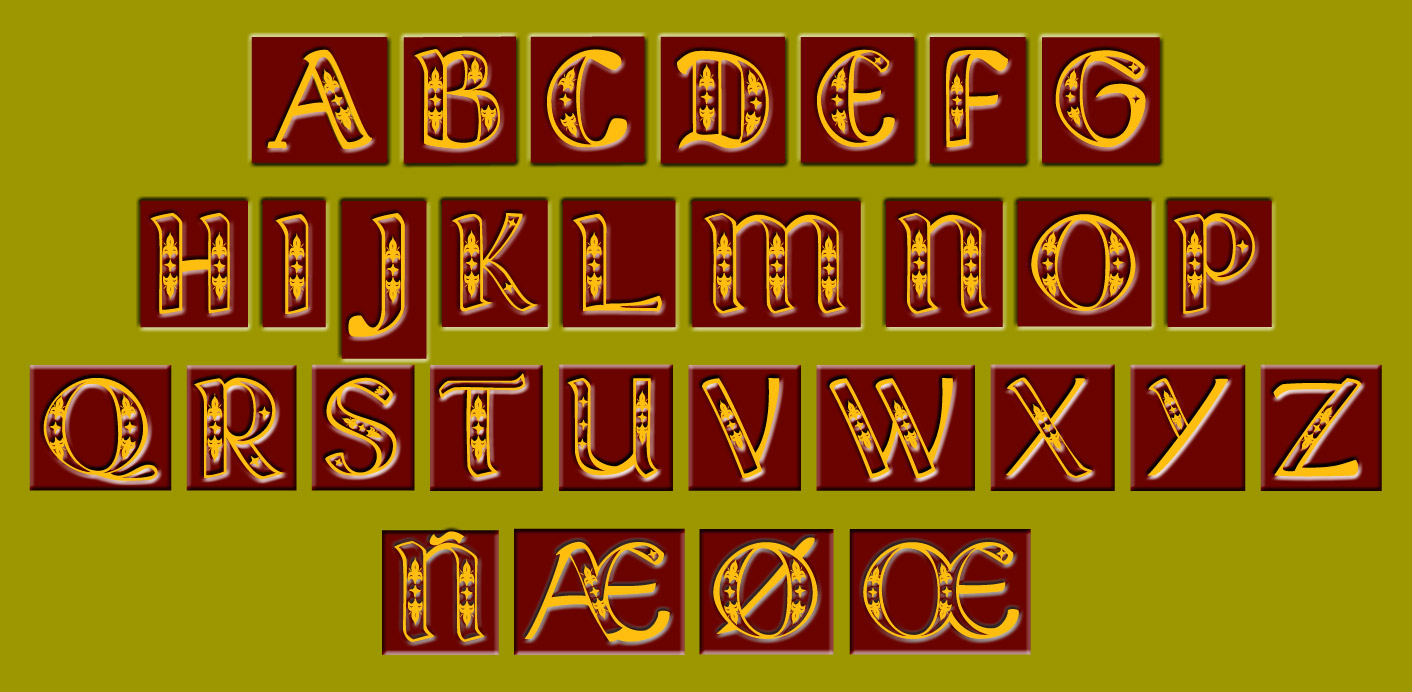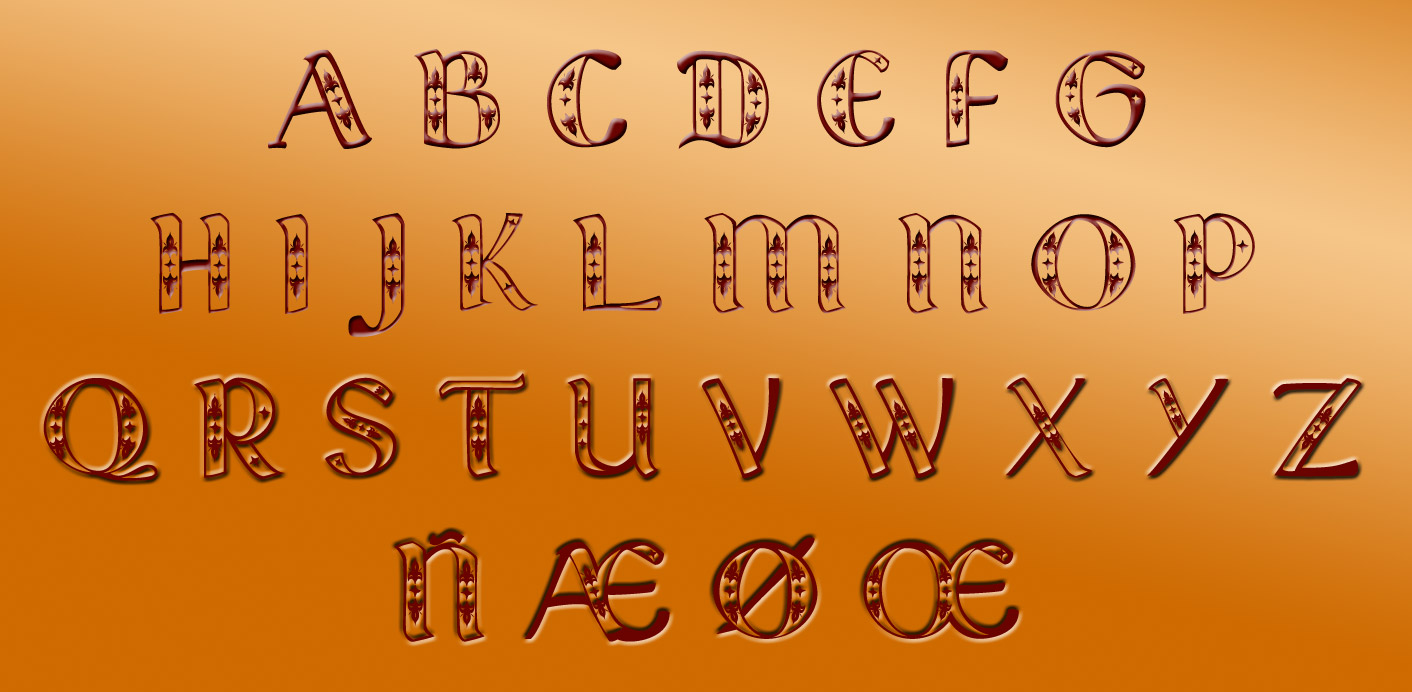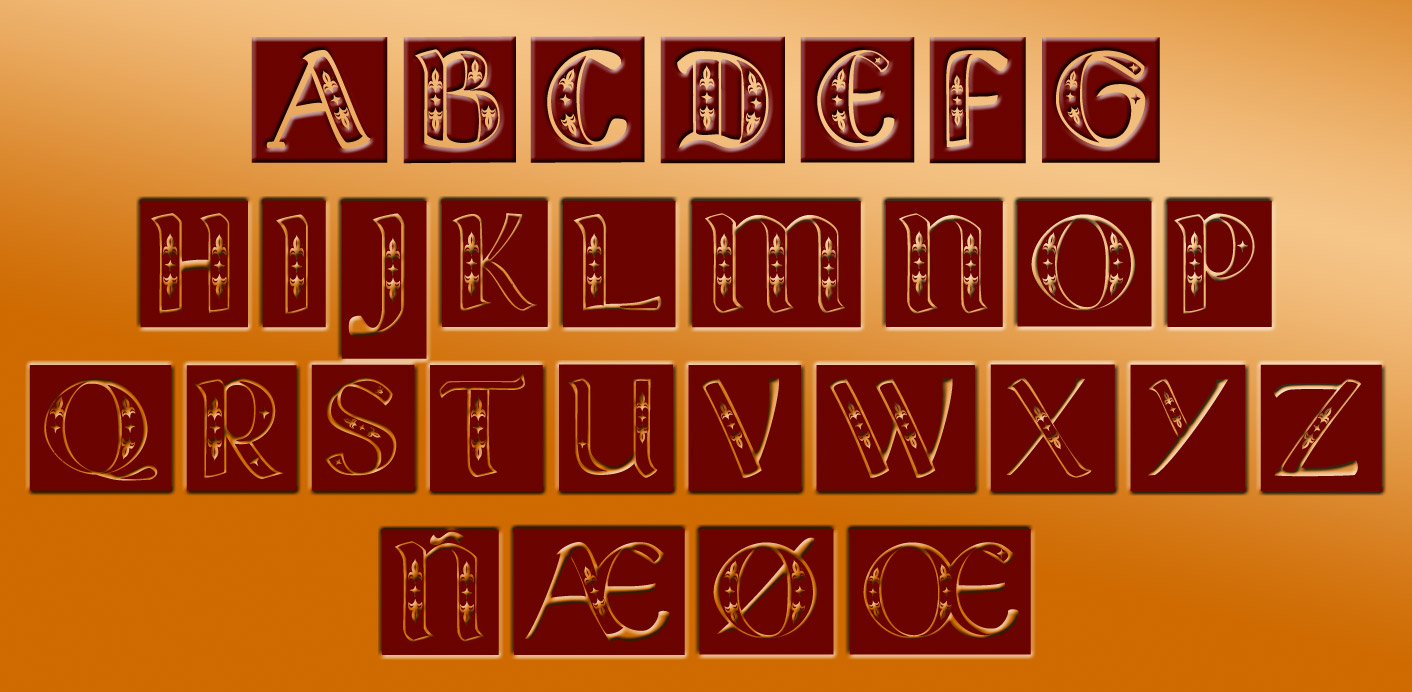
There's a long tradition of filling letters with leafy ornaments, from the Middle Ages on. The question is how do you get the living, multi-coloured, 3D effect which the old manuscripts have, with a single-colour 2D computer font?! Here's one solution, inspired by a modernised version of some mediaeval capitals: three family members, using the upper and lower case spaces for diferent versions, giving six variants. - click on the thumbnails for a full-size image! - |
- four fonts, one colour - six styles |
- one font, one colour - 30 different ways of making a bevel |
- regular font - basic characters - four effects |
- italic font - upper-case, lower-case - four effects |